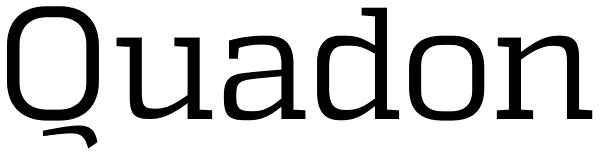
Quadon
Quadon was designed to fill the gap between traditional serifs and the lasting trend of using sans serif fonts for contemporary design. The result is a modern, clear and infinitely flexible interpretation of slab serif fonts. The open shapes and a...